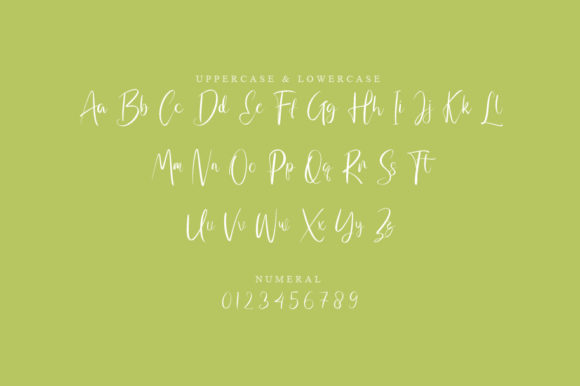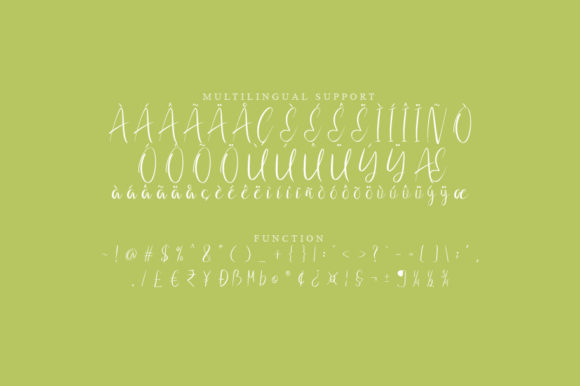
About Erety Script Font
Introducing Erety Script, a font that captures the essence of timelessness and elegance through its handwritten charm. With its graceful and flowing strokes, Erety Script brings a sense of beauty and sophistication to every letter, making it the perfect choice for a variety of design projects.
Erety Script’s versatility shines through, making it an excellent option for creating captivating logos, establishing strong branding, and conveying impactful quotes. The font’s unique and captivating touch adds a layer of authenticity and individuality to your designs, helping them stand out in a crowded visual landscape.
Each letter of Erety Script is carefully crafted to exude its own distinctive character and beauty. The thoughtful design ensures that every stroke, loop, and curve contributes to an overall sense of harmony and visual appeal. This attention to detail guarantees that your design will come alive with a touch of sophistication that leaves a lasting impression.
Whether you’re working on a high-profile project or a personal endeavor, Erety Script’s timeless elegance brings a touch of class to every application. Its ability to convey emotions, messages, and ideas in a captivating manner makes it an indispensable tool in your creative toolkit.
By choosing Erety Script, you’re not just selecting a font—you’re choosing to infuse your designs with a sense of grace and charm that transcends fleeting trends. With Erety Script, your creations will radiate an enduring beauty that captures the essence of your vision and resonates with your audience.
Unleash the potential of Erety Script to transform your design projects into captivating works of art. Let its timeless handwritten style elevate your logos, branding, and quotes, and watch as it breathes life into every aspect of your creative journey.